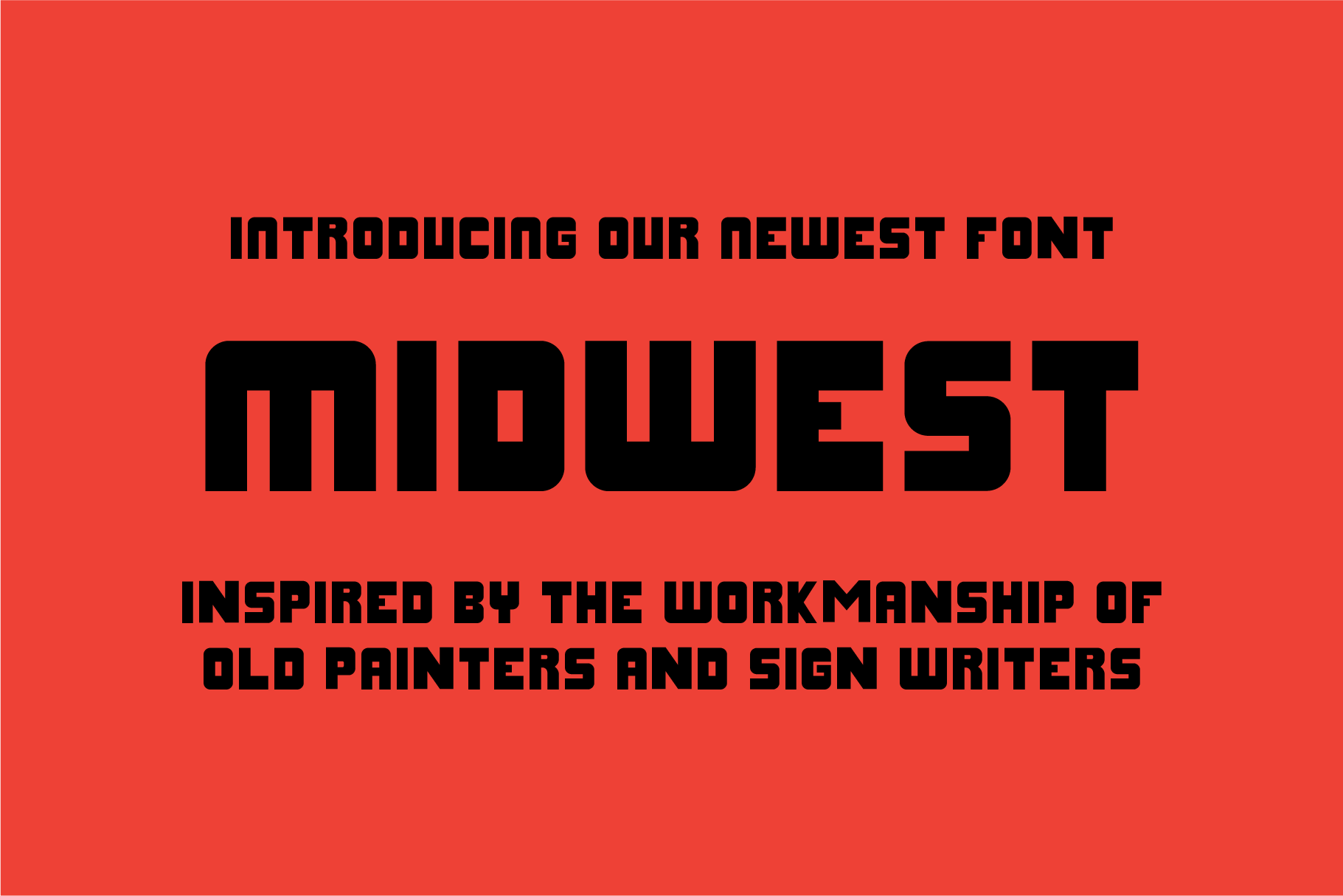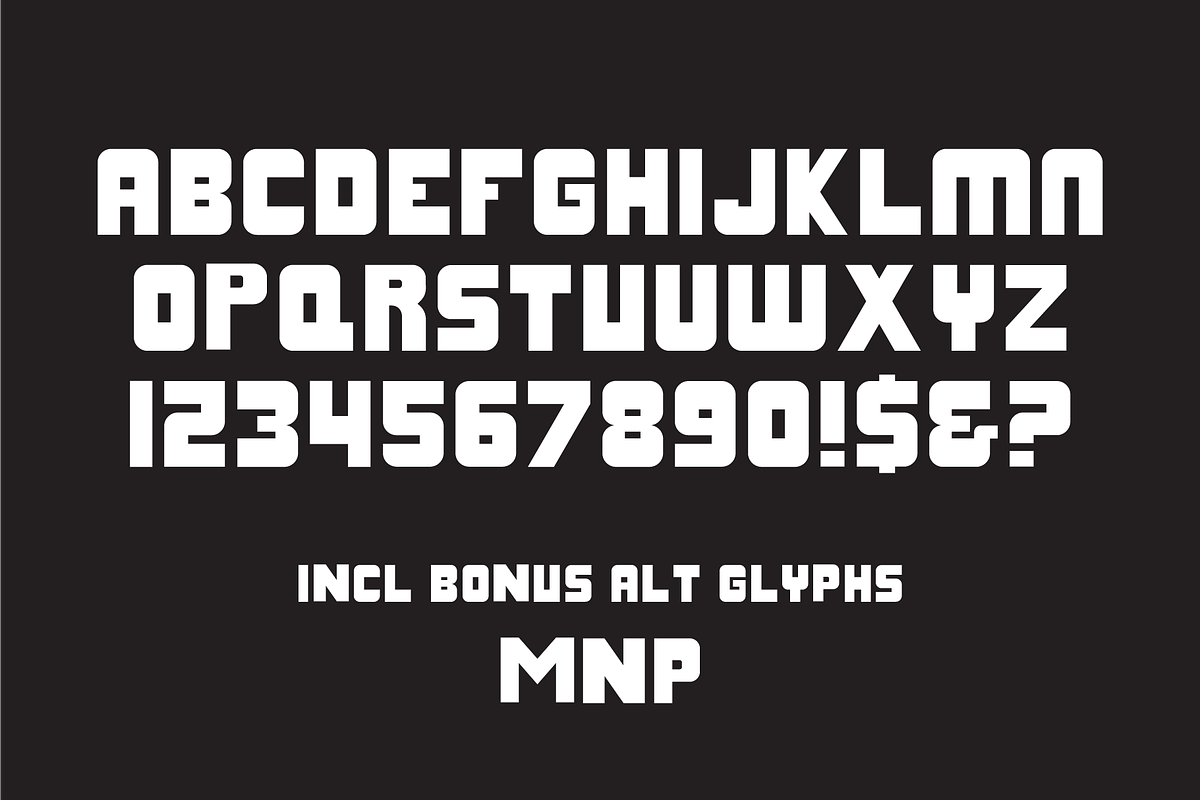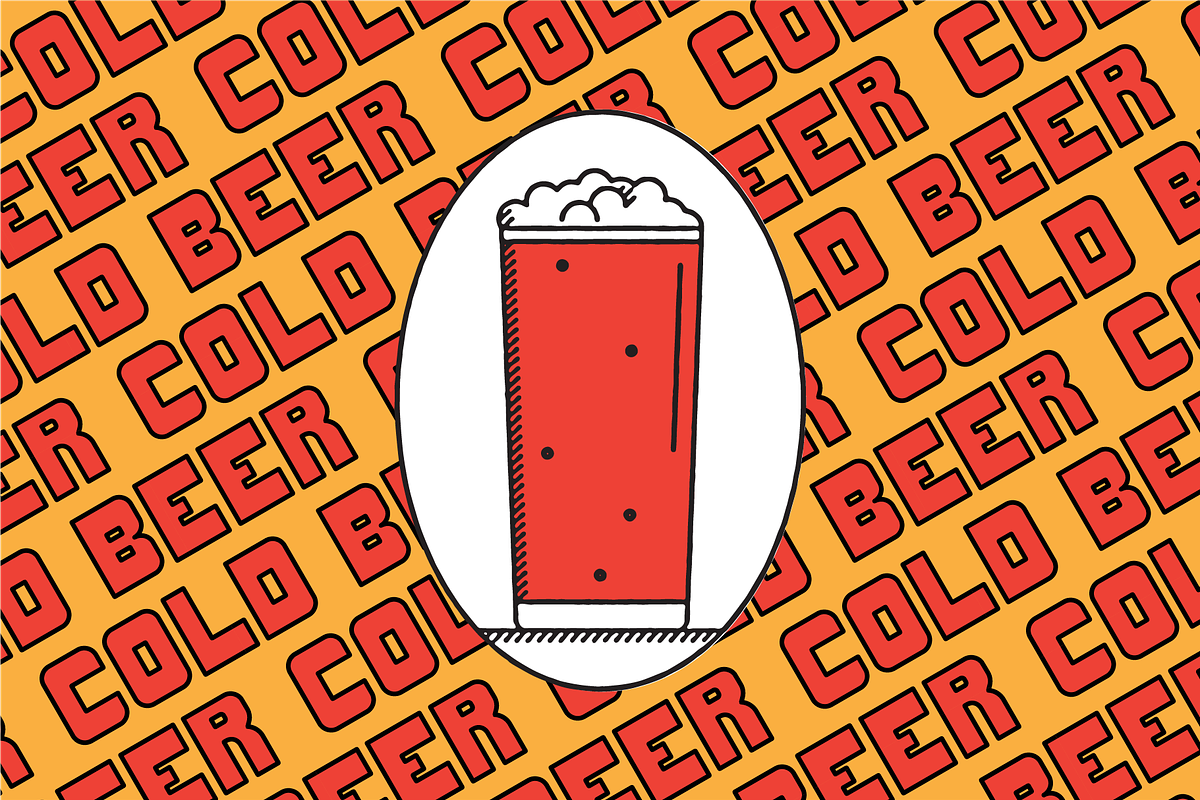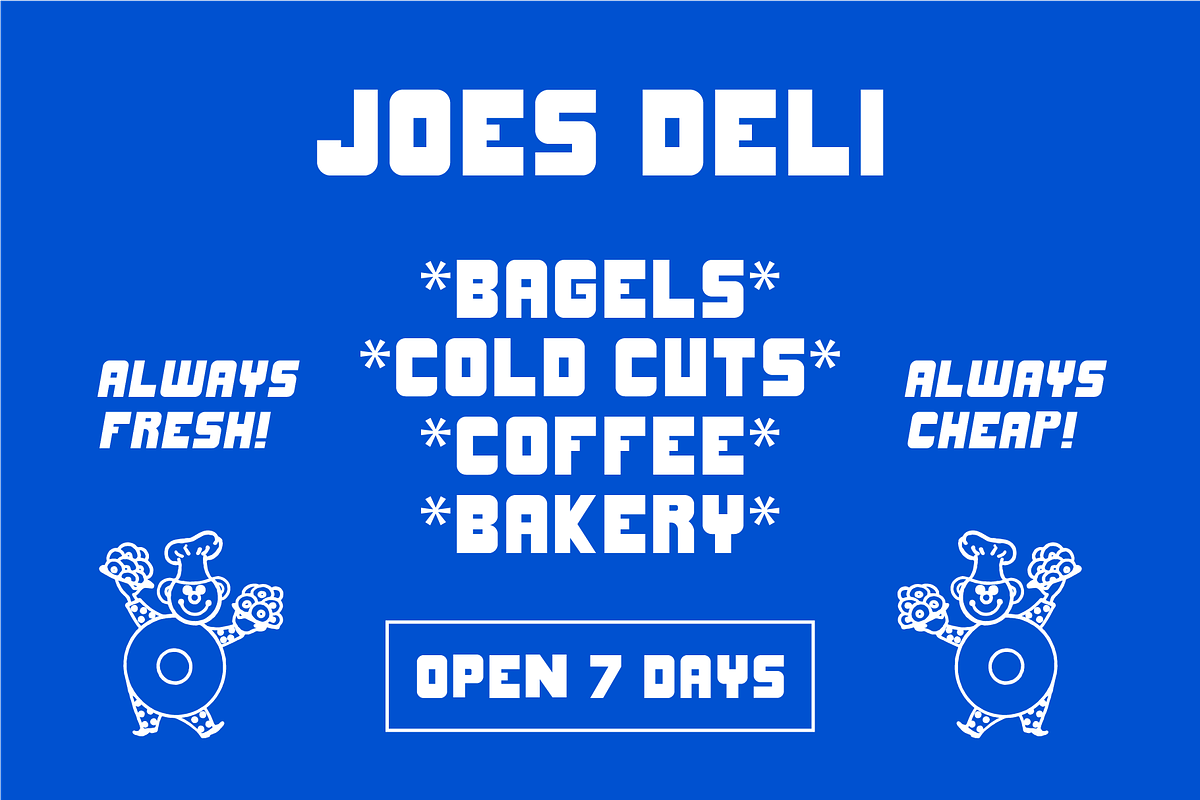
Midwest - A vintage inspired font
Introducing our newest font 'MIDWEST'. Inspired by the workmanship of old painters and sign writers. We love the character of old painted signs and the slight imperfections that give them so much personality.